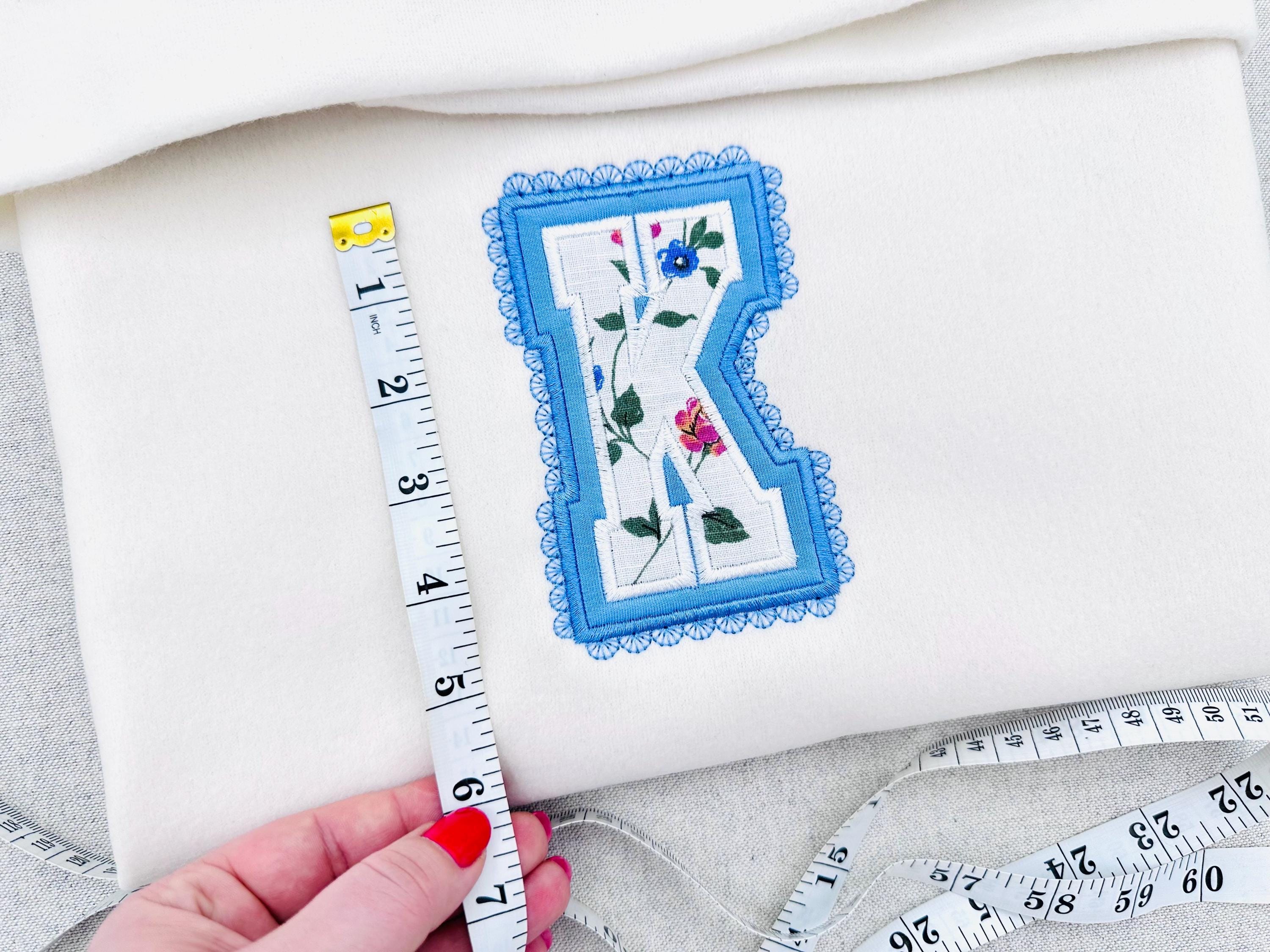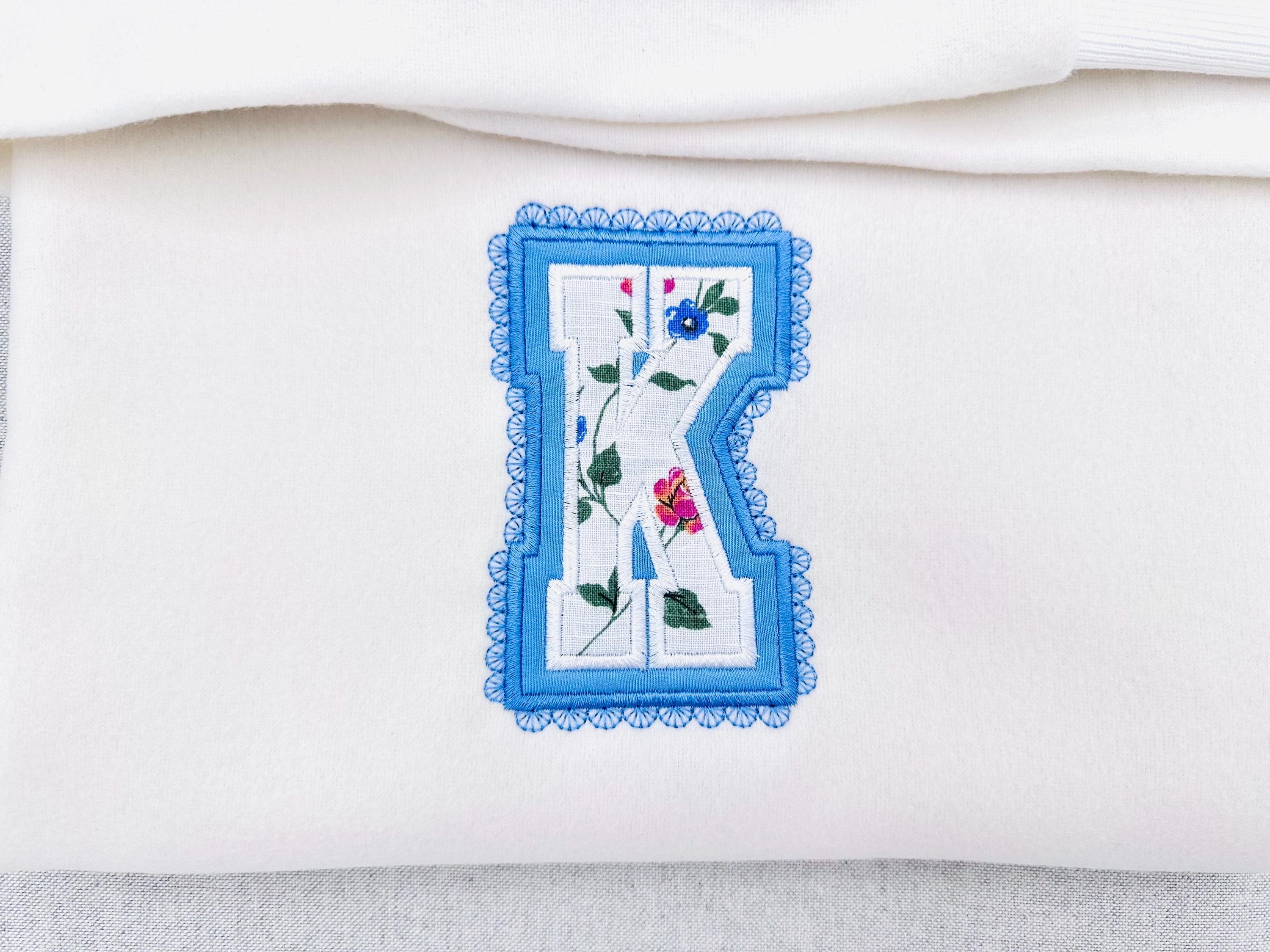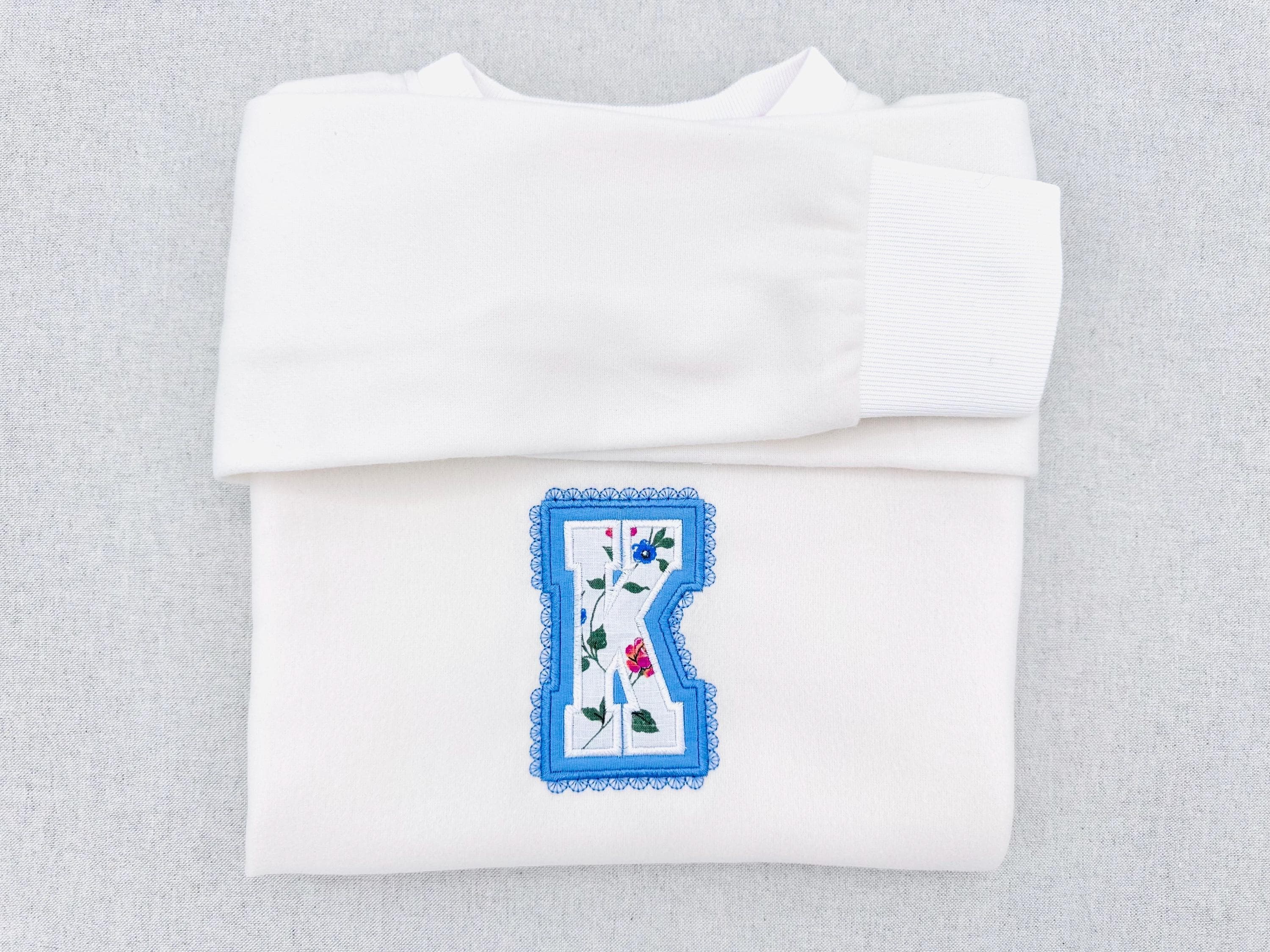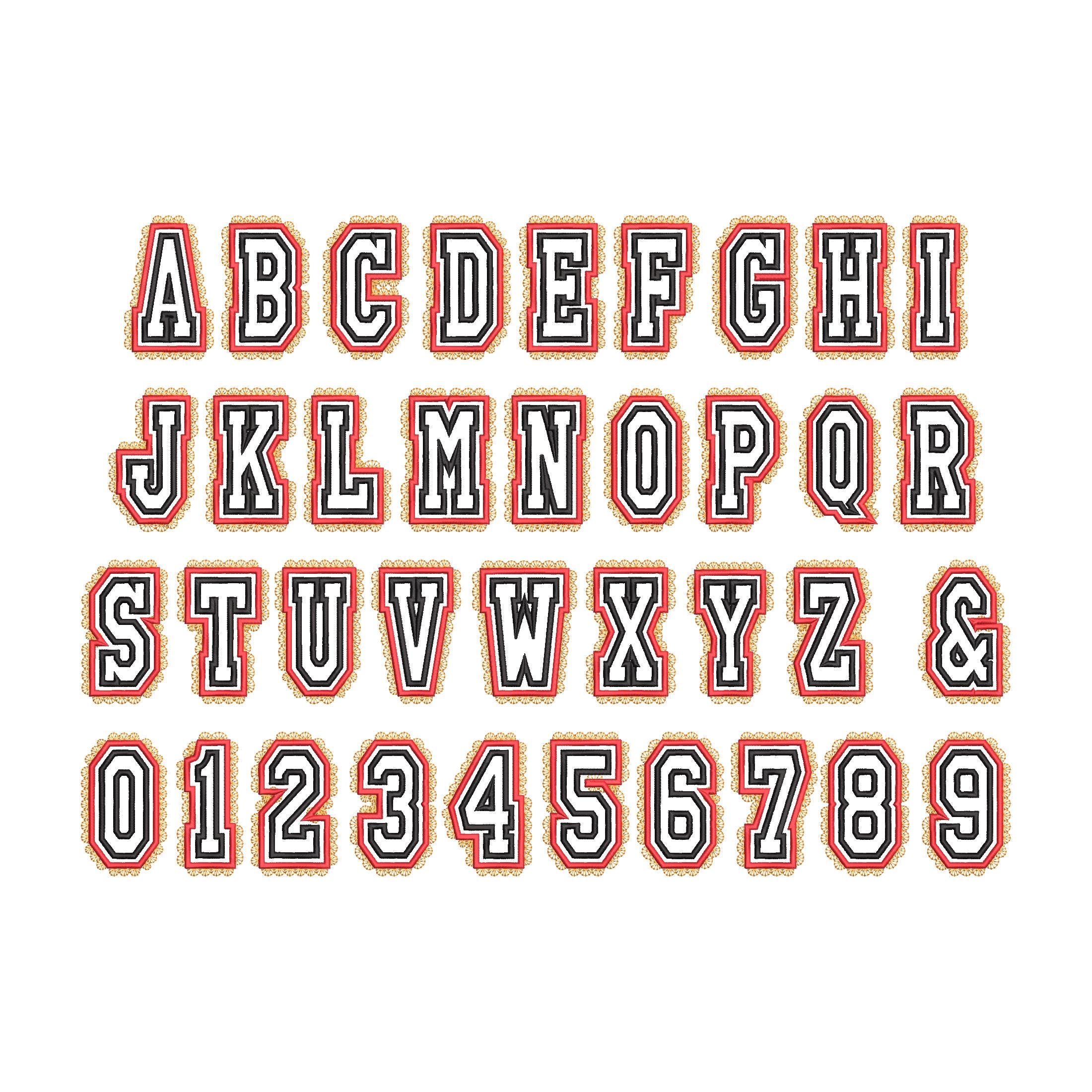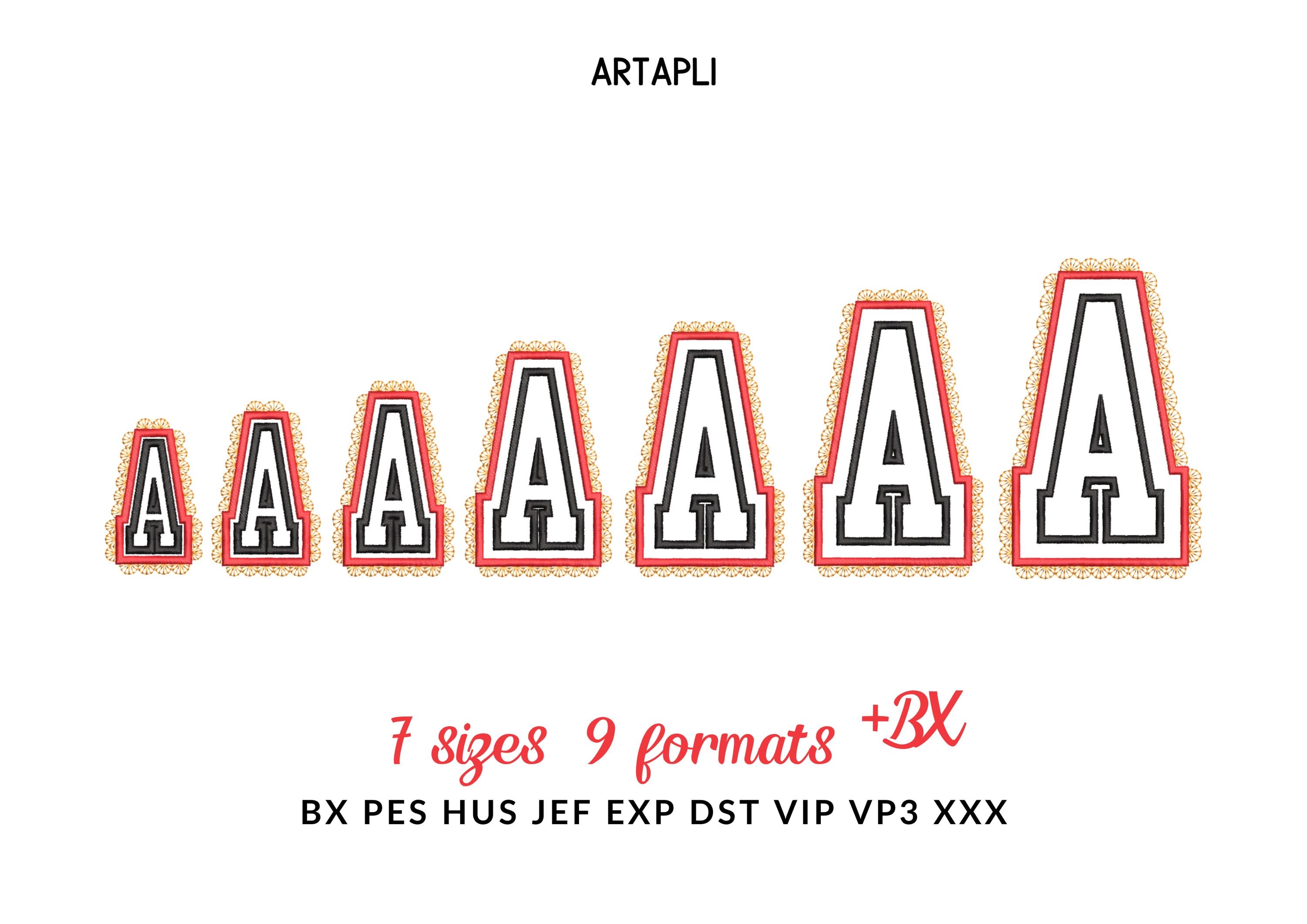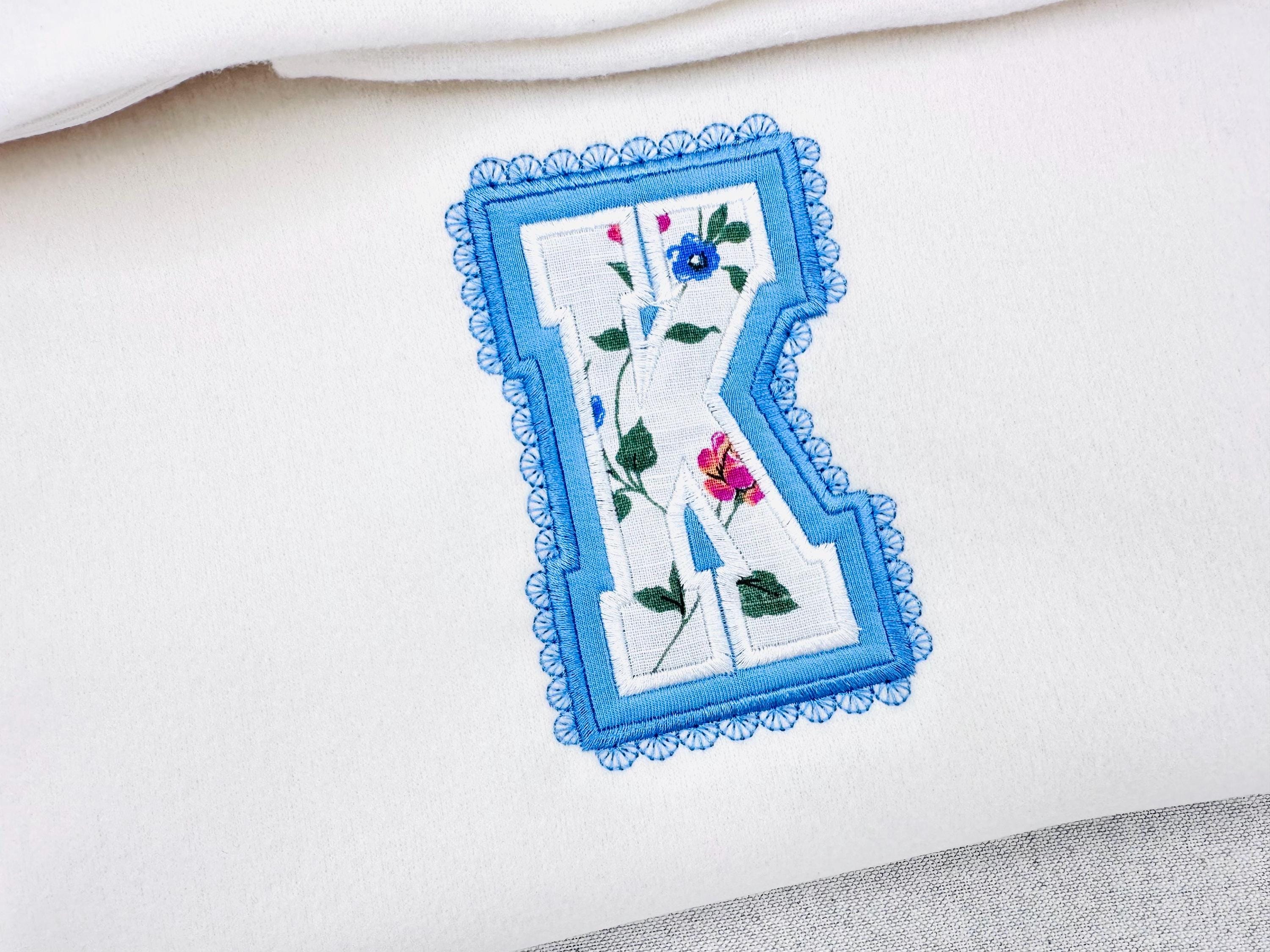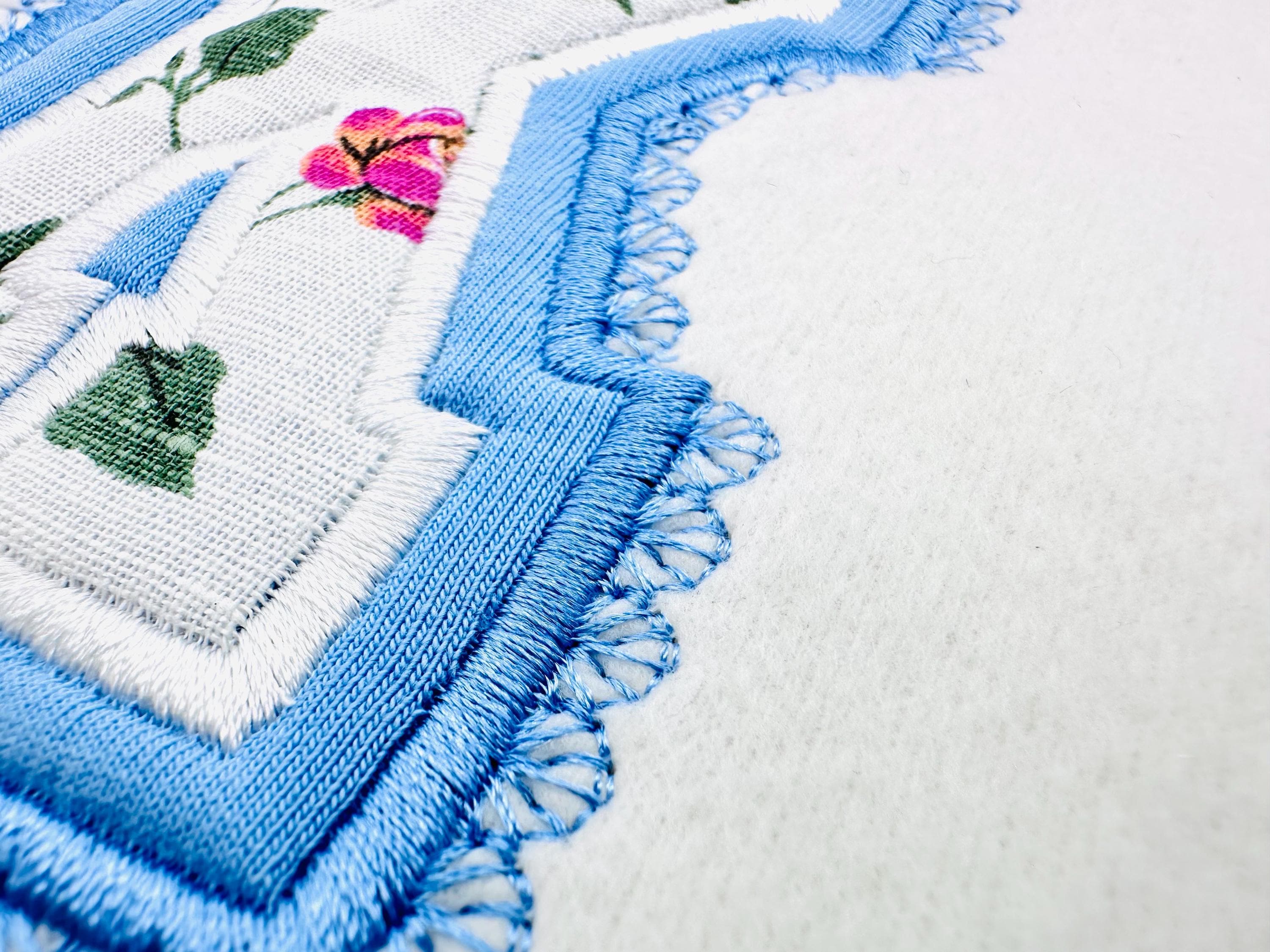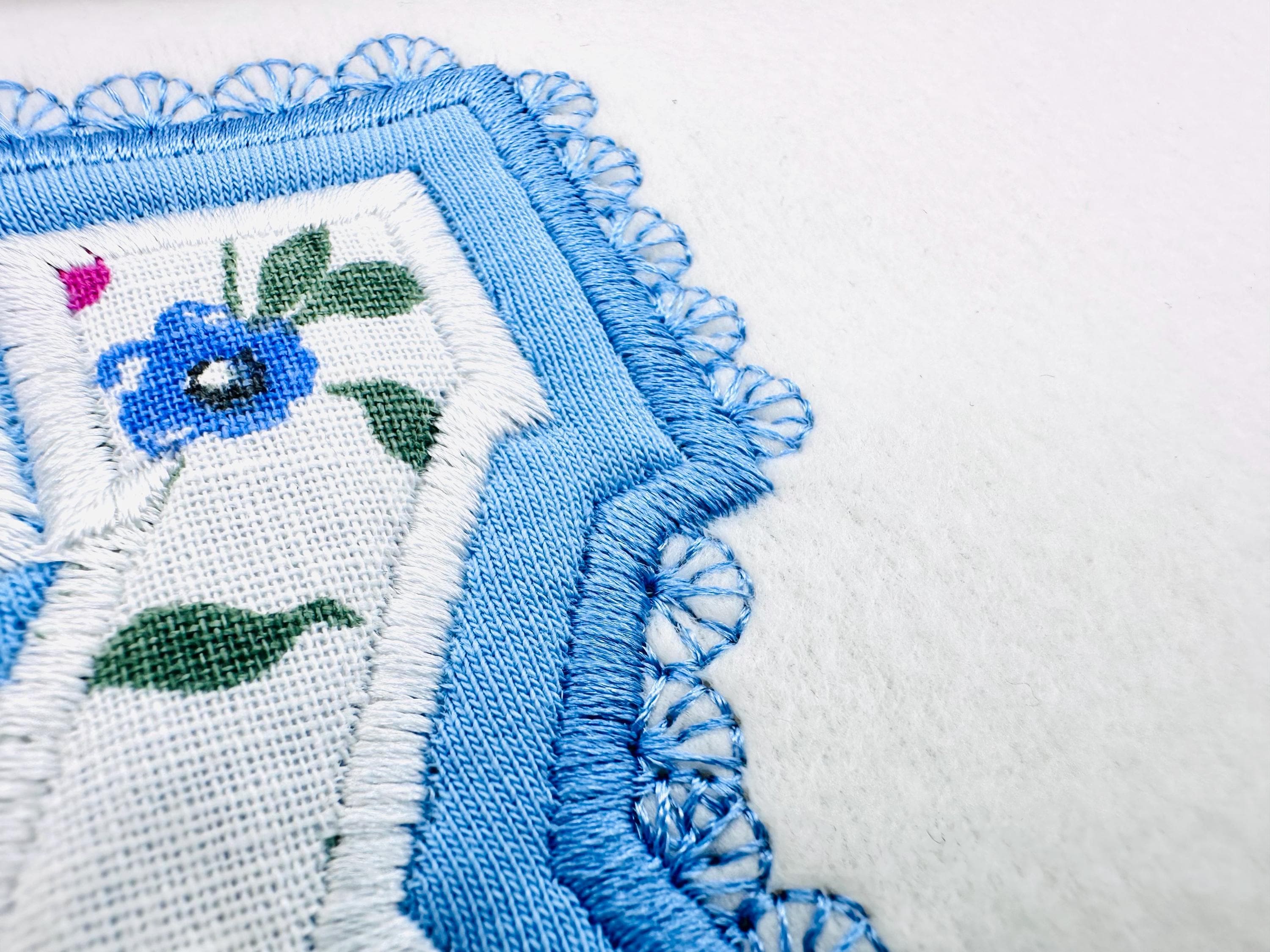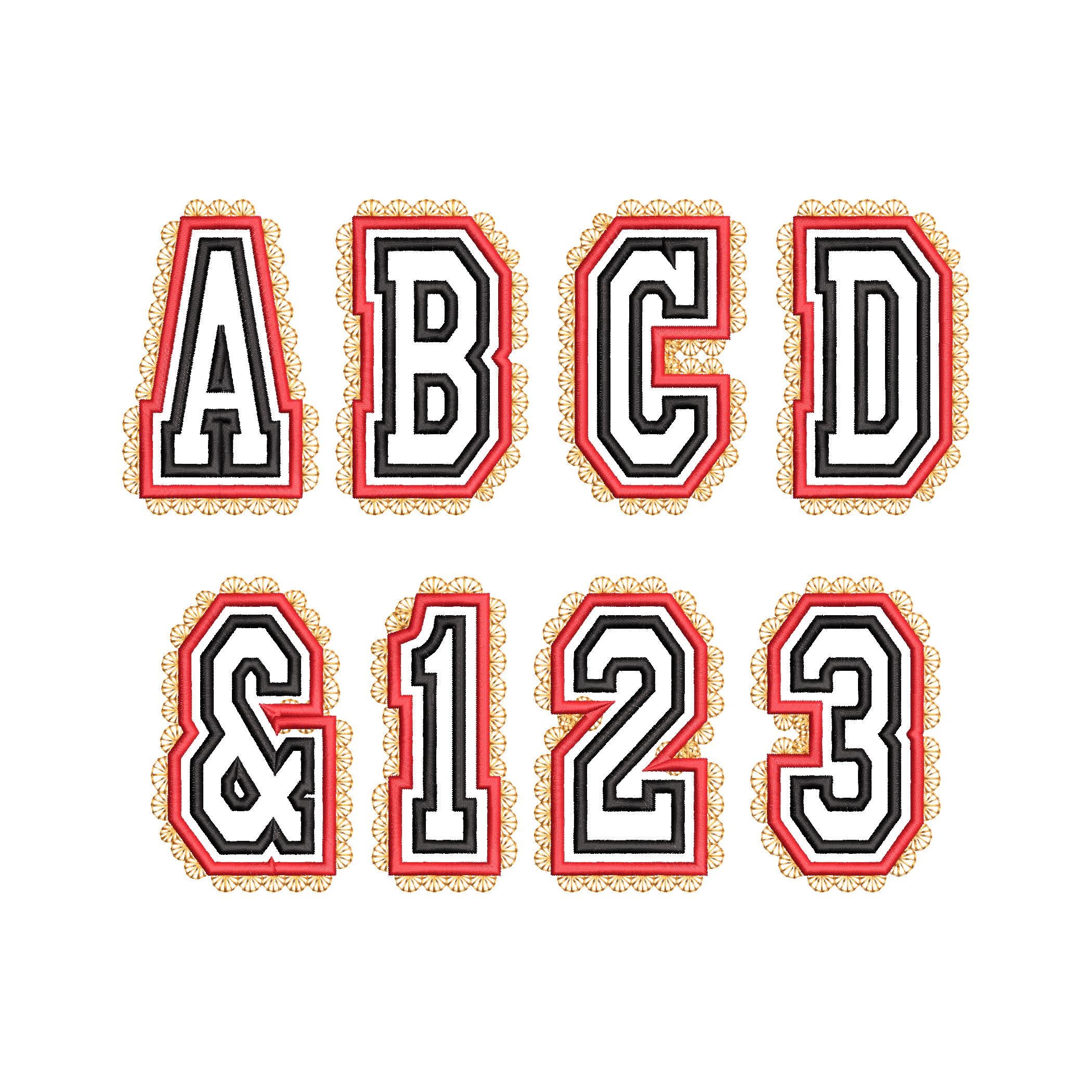
Lace Edge double layer applique Font Sports Block Alphabet Monogram kids girls machine embroidery designs many sizes 3 up to 6.3 inch BX
Entire alphabet uppercase letters A-Z, numbers 0-9, and ampersand.
Lace edge is a part of the design. The background fabric looks through. Stunning effect!